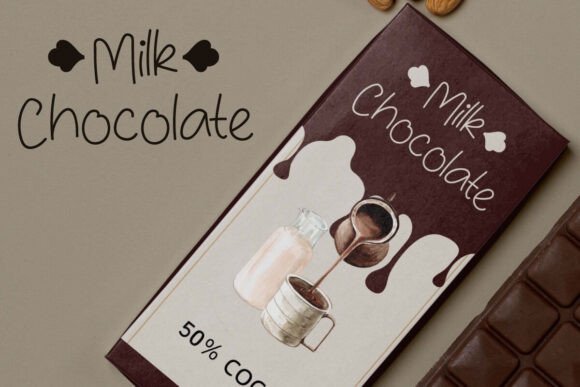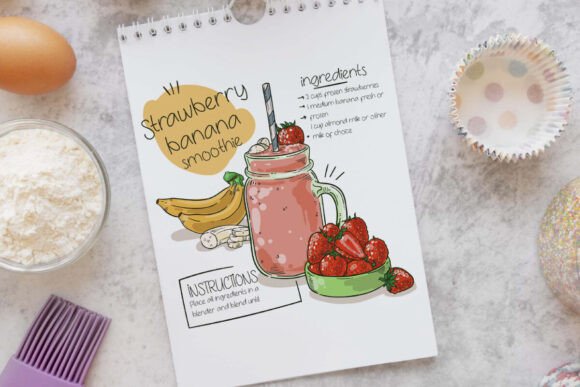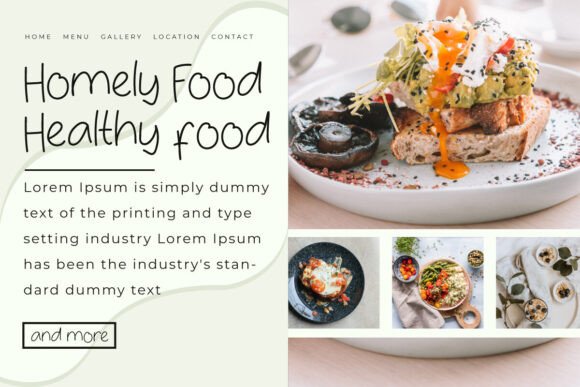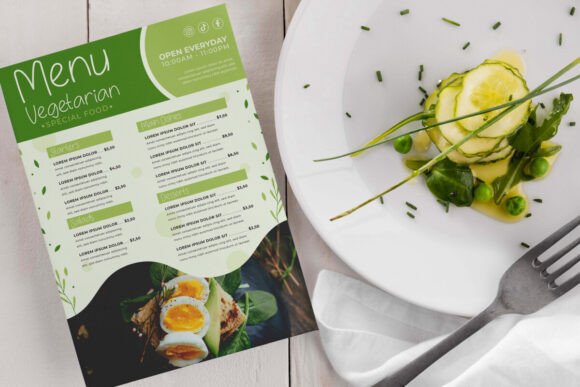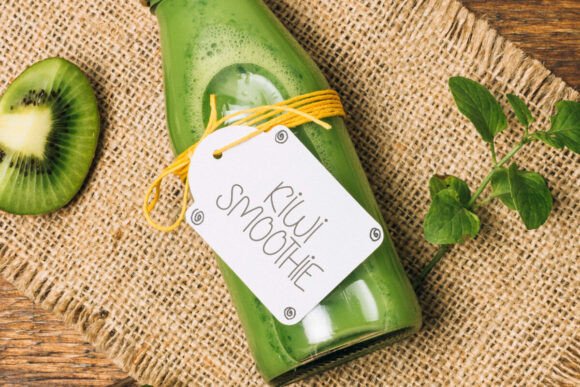
Introduction to Pisang Goreng Font Font
Fonts play a crucial role in design, and the Pisang Goreng Font font is a typeface that brings both character and versatility to any project. Whether you’re working on a branding project, a website, or a print design, the Pisang Goreng Font font offers a unique style that can elevate your work.
Pisang Goreng Font is an attractive sweet casual handwriting font with cute simple look.
This will add a pleasant appearance to your business, such as architect, bakery, café, catering, clothing brand, chocolate brands, cooking, crafts, culinary, fashion, film, florist, food court, fruit growers, furniture, graphic design, pastry, photography, printing, publishing, restaurant, retail, wellness, writer, and many more .
Why Choose Pisang Goreng Font Font?
The Pisang Goreng Font font is more than just a typeface – it’s a design tool that helps you communicate your message with style and clarity. Its unique character set and versatile design make it suitable for a wide range of applications, from elegant invitations to bold headlines.
With its carefully crafted letterforms and balanced proportions, the Pisang Goreng Font font ensures readability and visual appeal across all mediums.
What makes Pisang Goreng Font font special?
The Pisang Goreng Font font stands out with its unique design, exceptional readability, and versatility across various design applications.